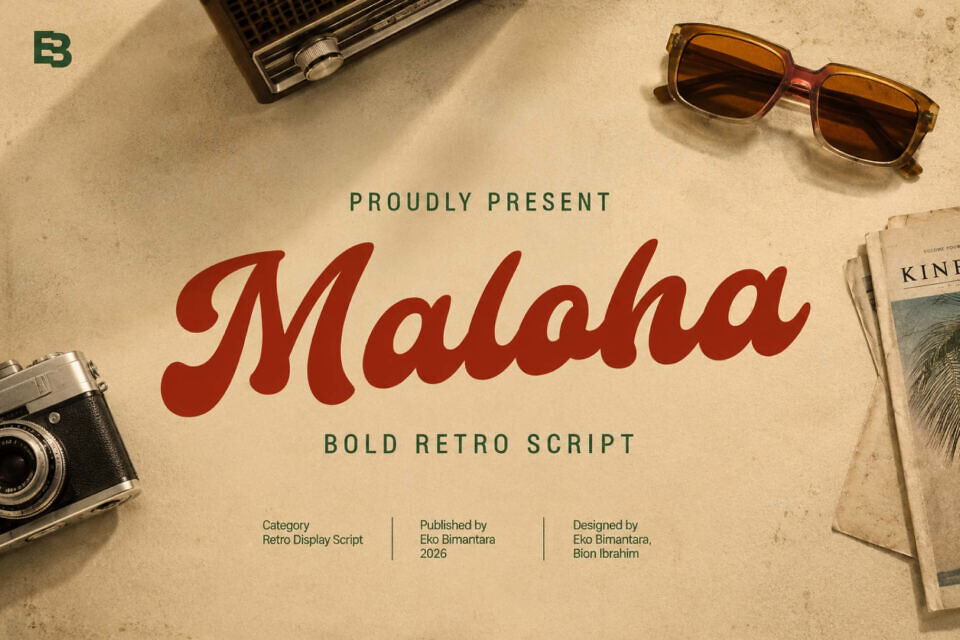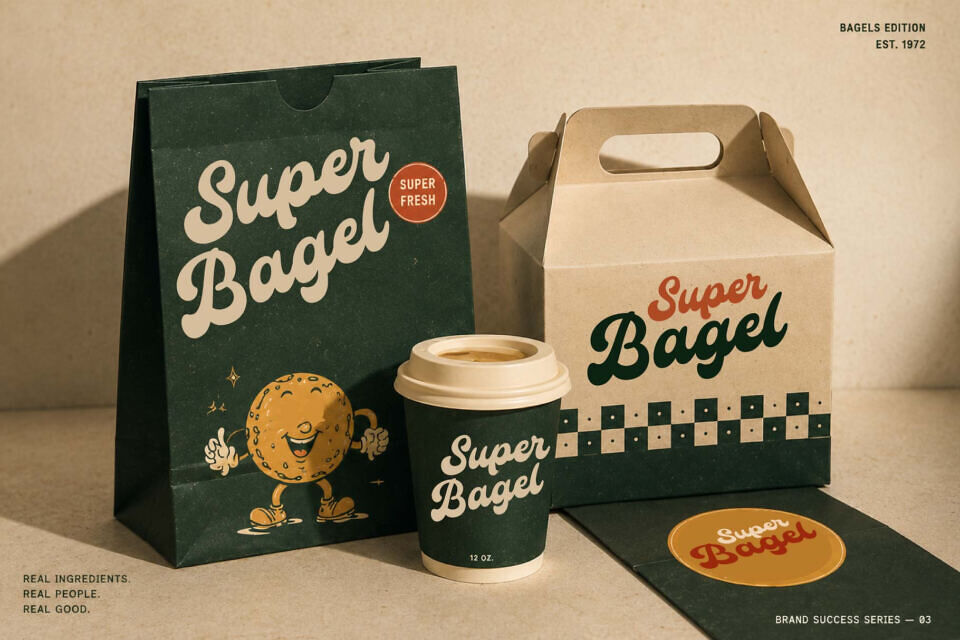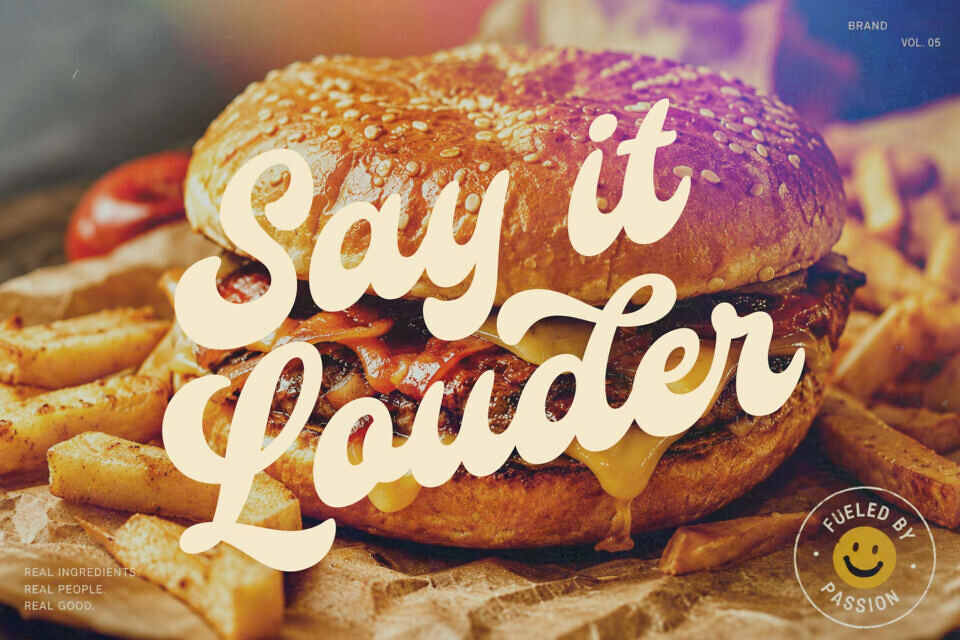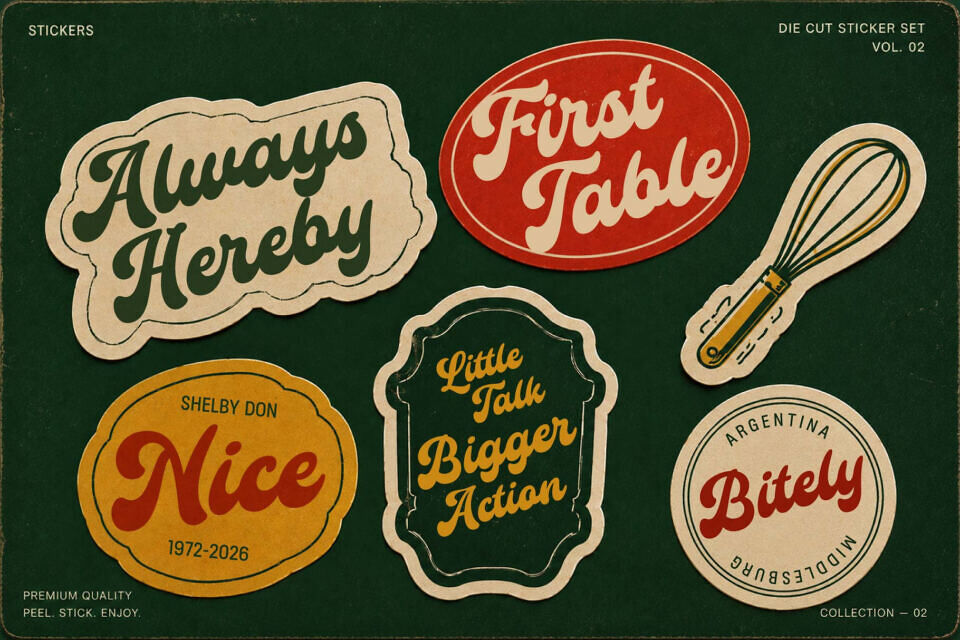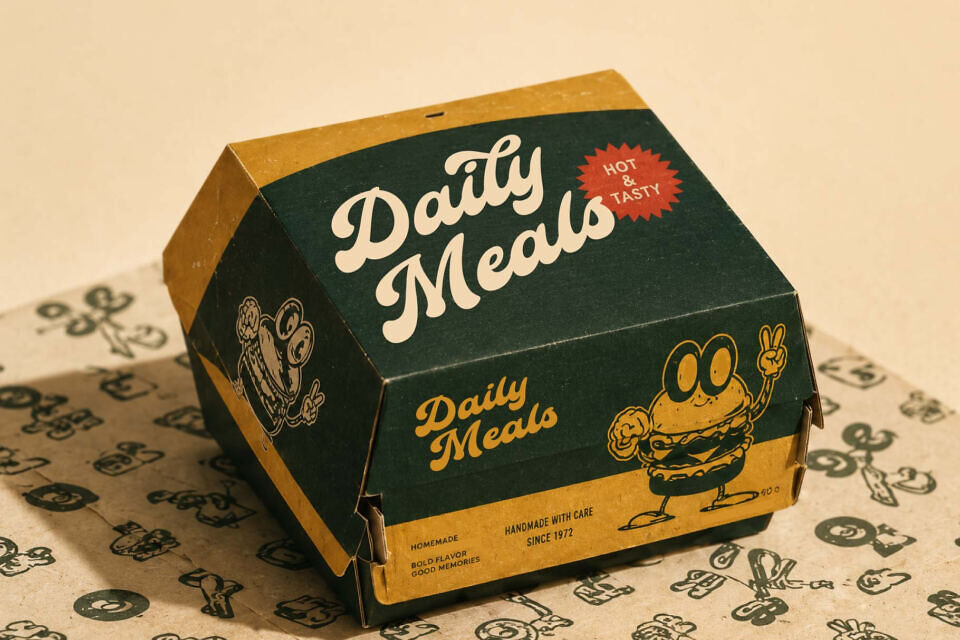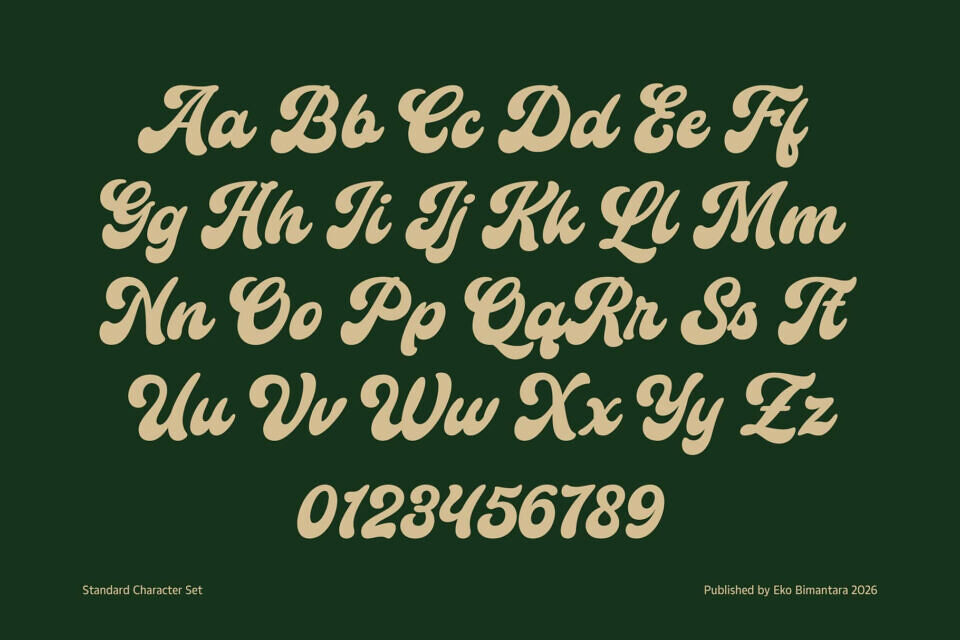
Maloha Font
Maloha is a bold retro display script inspired by the timeless charm of vintage cafés, classic diners, handcrafted signage, and nostalgic packaging from the 1960s and 70s. Featuring smooth flowing curves, soft shapes and carefully balanced letterforms, it delivers a warm, friendly personality with a refined professional type craft.
Whether used for logos, restaurant branding, coffee shops, bakeries, food packaging, merchandise, posters, or editorial headlines, Maloha brings an authentic handcrafted feel that instantly captures attention and creates memorable, inviting designs with effortless vintage character.